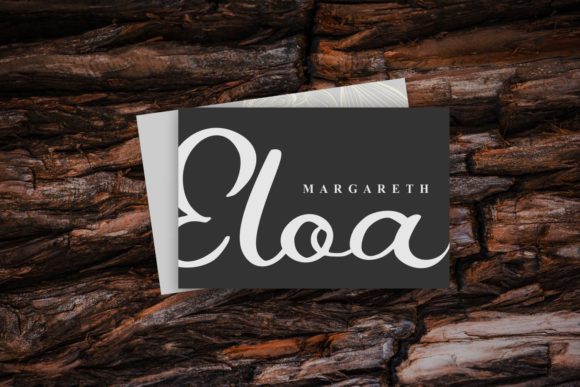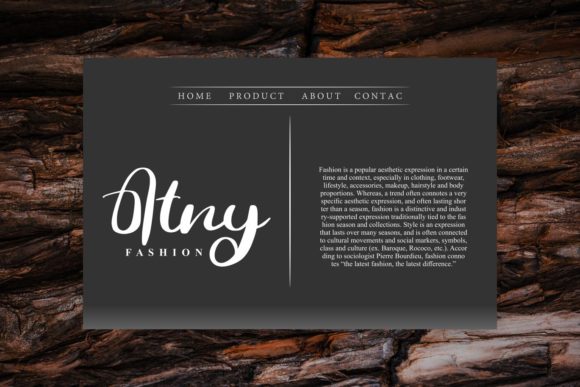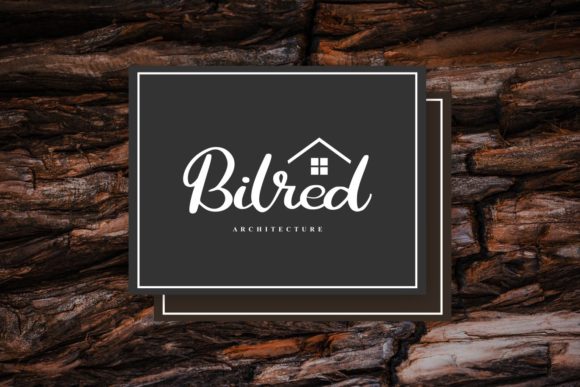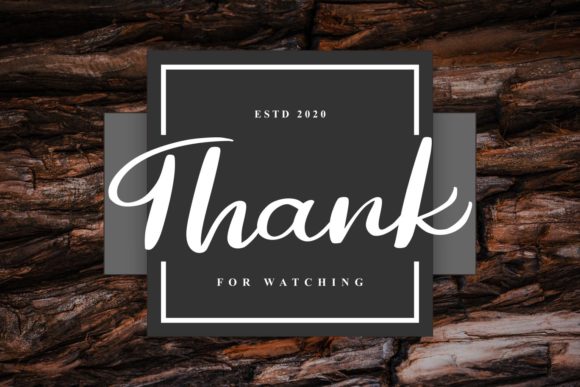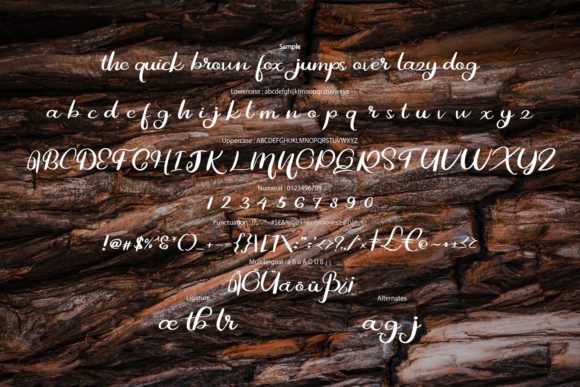
Introduction to Hetbig Font Font
Fonts play a crucial role in design, and the Hetbig Font font is a typeface that brings both character and versatility to any project. Whether you’re working on a branding project, a website, or a print design, the Hetbig Font font offers a unique style that can elevate your work.
Hetbig is a gorgeous calligraphy font thatβs full of life.
Key Features of Hetbig Font Font
The Hetbig Font font is more than just a typeface β it’s a design tool that helps you communicate your message with style and clarity. Its unique character set and versatile design make it suitable for a wide range of applications, from elegant invitations to bold headlines.
With its carefully crafted letterforms and balanced proportions, the Hetbig Font font ensures readability and visual appeal across all mediums.
The Hetbig Font font stands out with its unique design, exceptional readability, and versatility across various design applications.